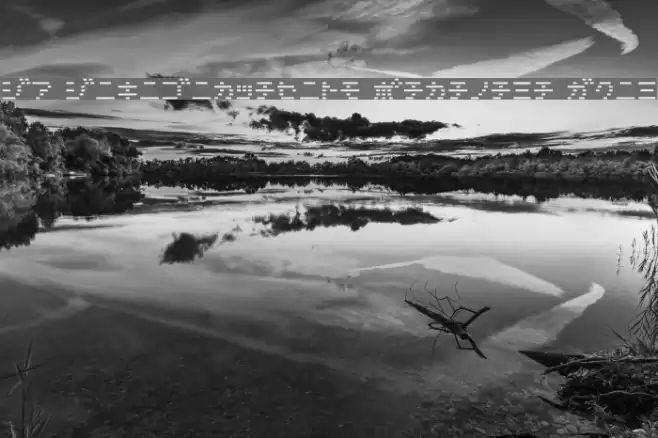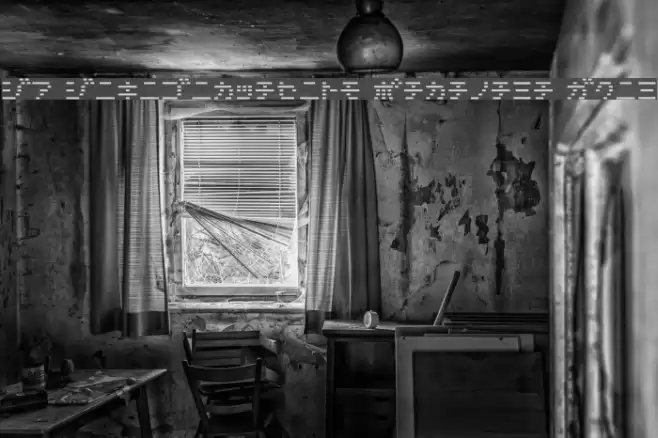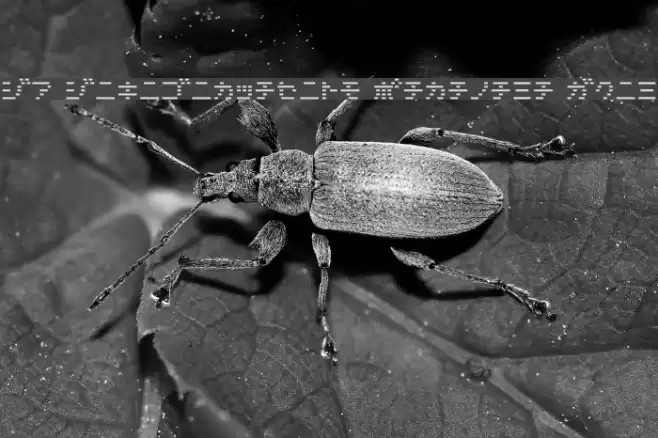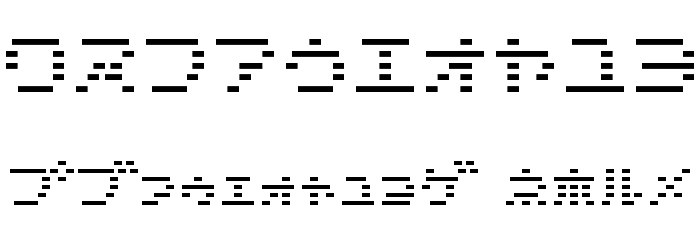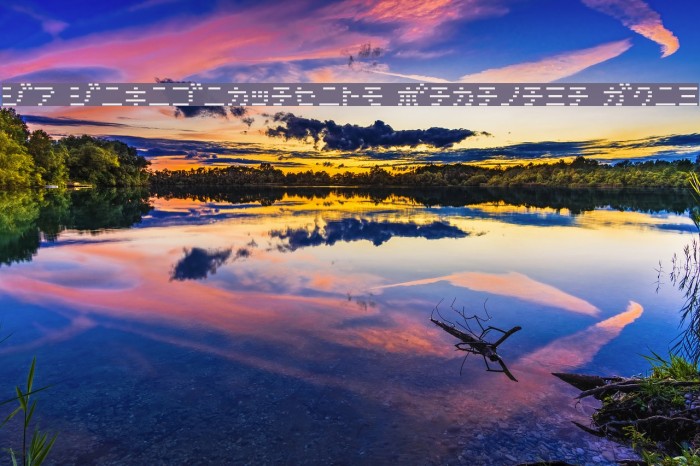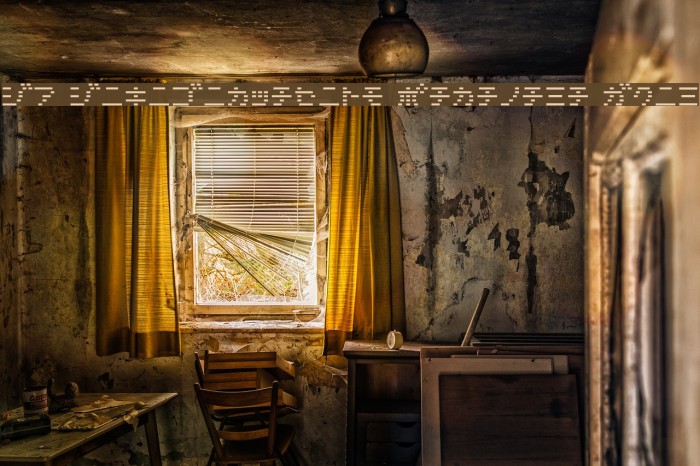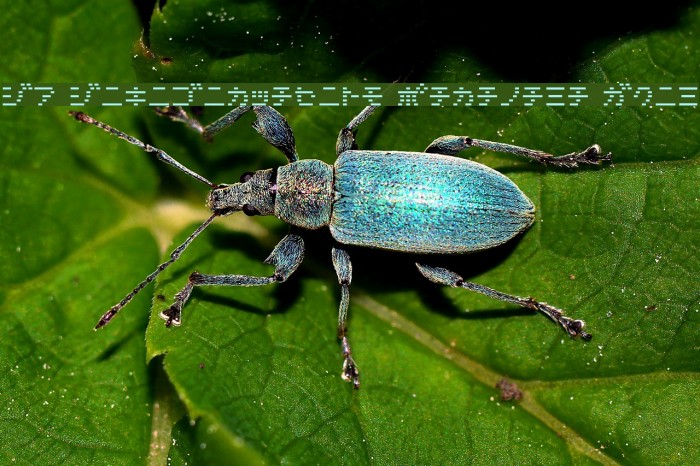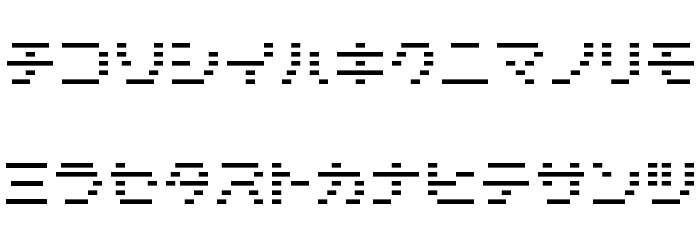
D3 DigiBitMapism Katakana Thin Font
D3 DigiBitMapism Katakana Thin Description
This font is a digital bitmap style that mimics the appearance of pixelated text, reminiscent of early computer screens and digital displays. It features a blocky, grid-like structure with uniform spacing, giving it a distinctly retro and technological feel. The characters are composed of small squares, creating a pixelated effect that is both nostalgic and modern. This style is particularly effective for projects that aim to evoke a sense of digital nostalgia or to convey a tech-savvy aesthetic. The font's thin weight ensures readability while maintaining its unique visual appeal.
A pixelated, digital bitmap font with a retro tech aesthetic from 3D fonts.
- Proposed Projects: Ideal for digital art, retro video game designs, tech-themed posters, and any project seeking a vintage digital look.
- Overall Style: Retro, Digital
- Use Case: Logos, Posters, Digital Art